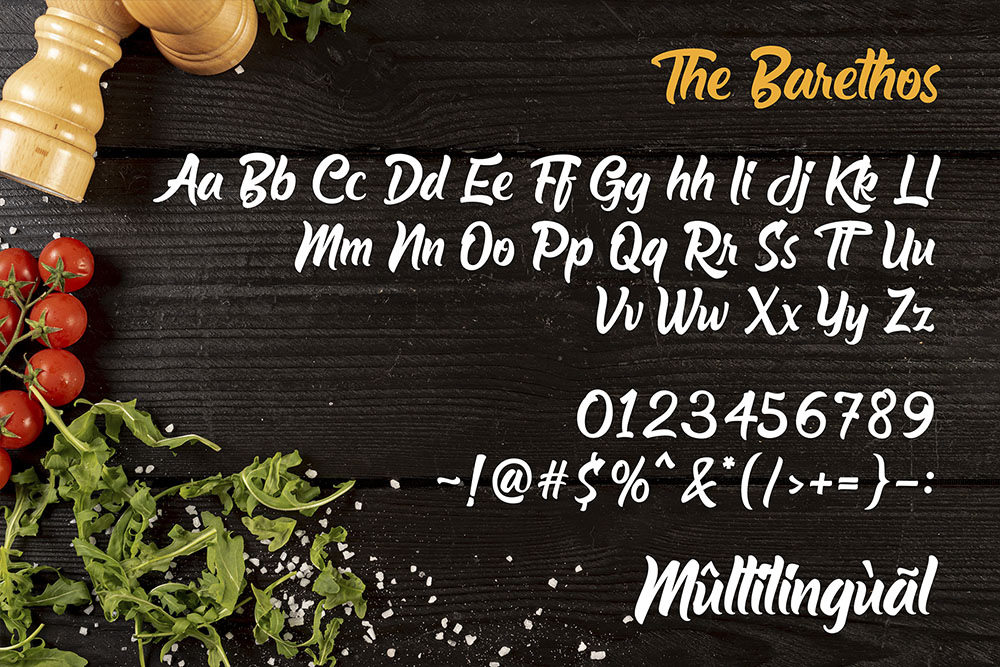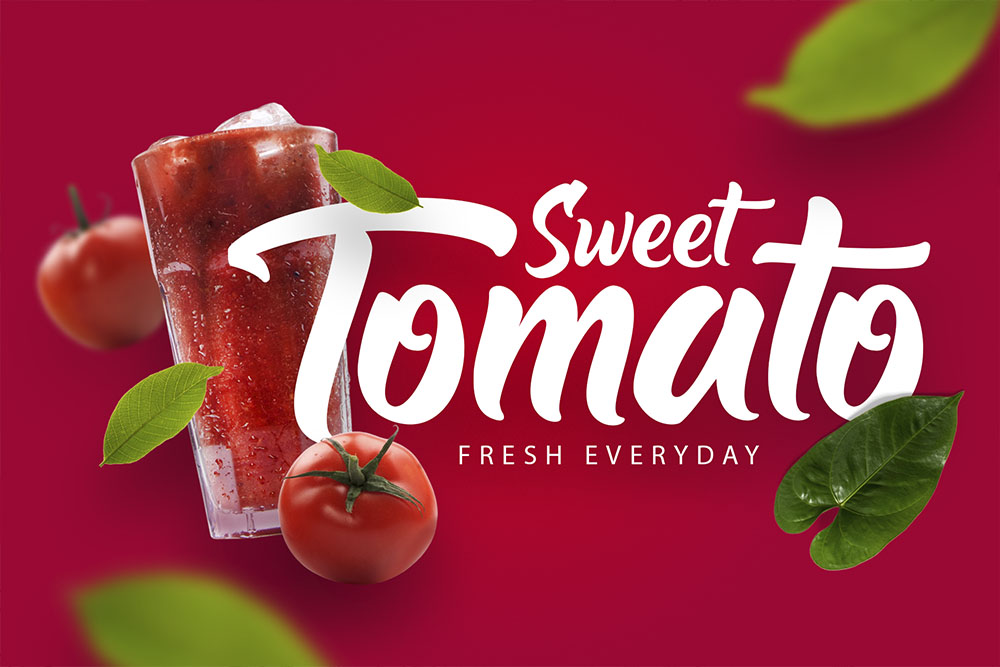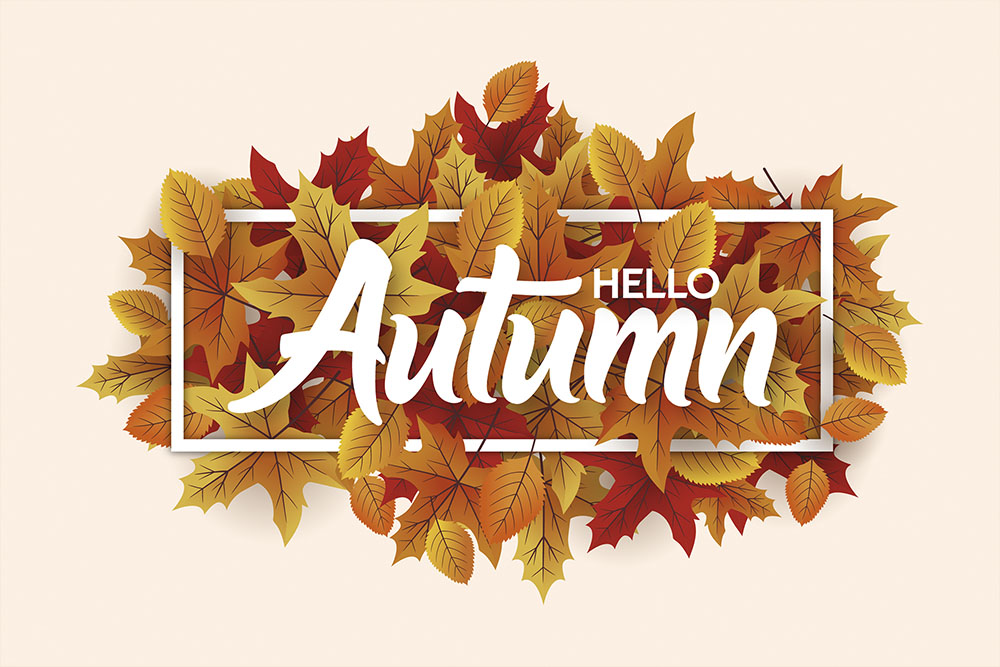
The Barethos
Fresh from the oven, meet The Barethos — a delicious display font inspired by the warm, playful world of tasty food.
With its unique letter shapes and fun visual personality, The Barethos is made to help your design feel more flavorful and memorable. It works beautifully for food logos, snack packaging, restaurant branding, menu titles, product labels, café visuals, posters, and other creative projects that need a bold and tasty touch.
The Barethos brings a friendly display style that can stand out on its own, especially for headlines and logo marks. You can also pair it with a clean sans serif or simple handwritten font to create more balanced layouts for packaging, menus, and brand identity systems.
Whether you are designing for a bakery, food truck, café, dessert brand, culinary event, or playful product packaging, The Barethos gives your typography a fresh and delicious character.
• Basic Latin uppercase and lowercase
• Numbers
• Symbols
• Stylistic alternates
• Multilingual support
• Food logo design
• Restaurant branding
• Café visuals
• Bakery packaging
• Snack labels
• Menu headlines
• Product packaging
• Posters and flyers
• Social media graphics
• Creative display typography